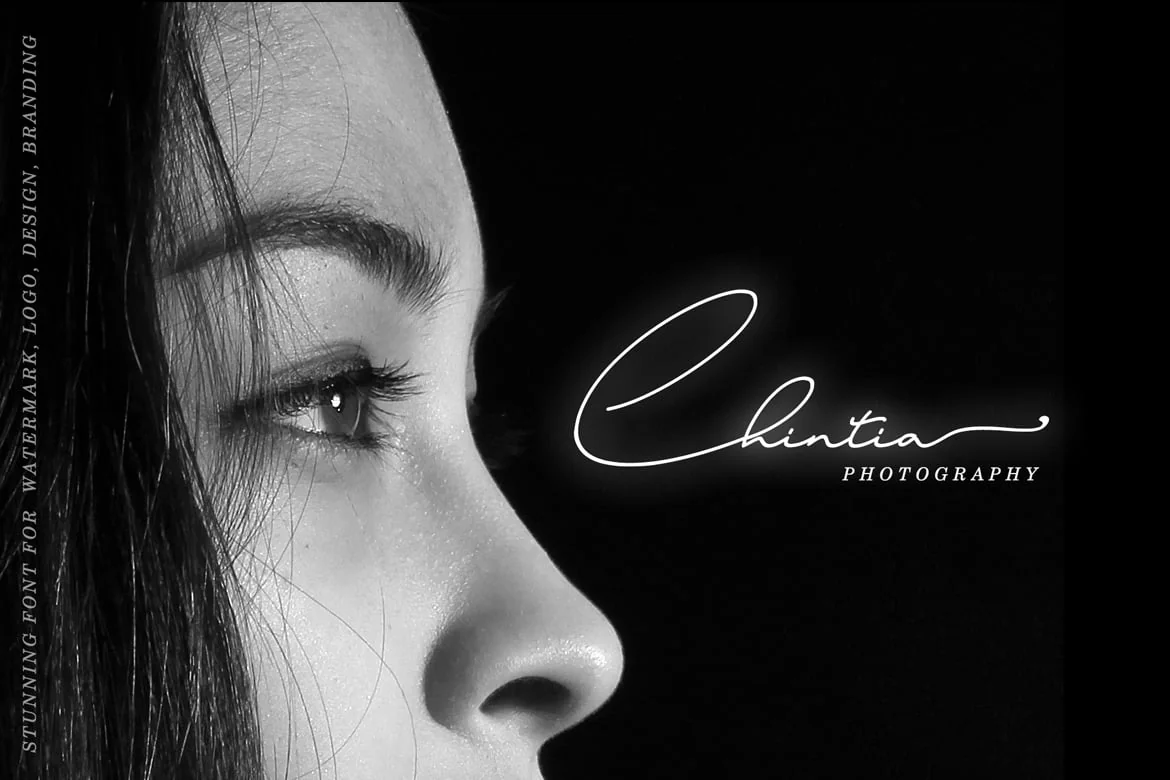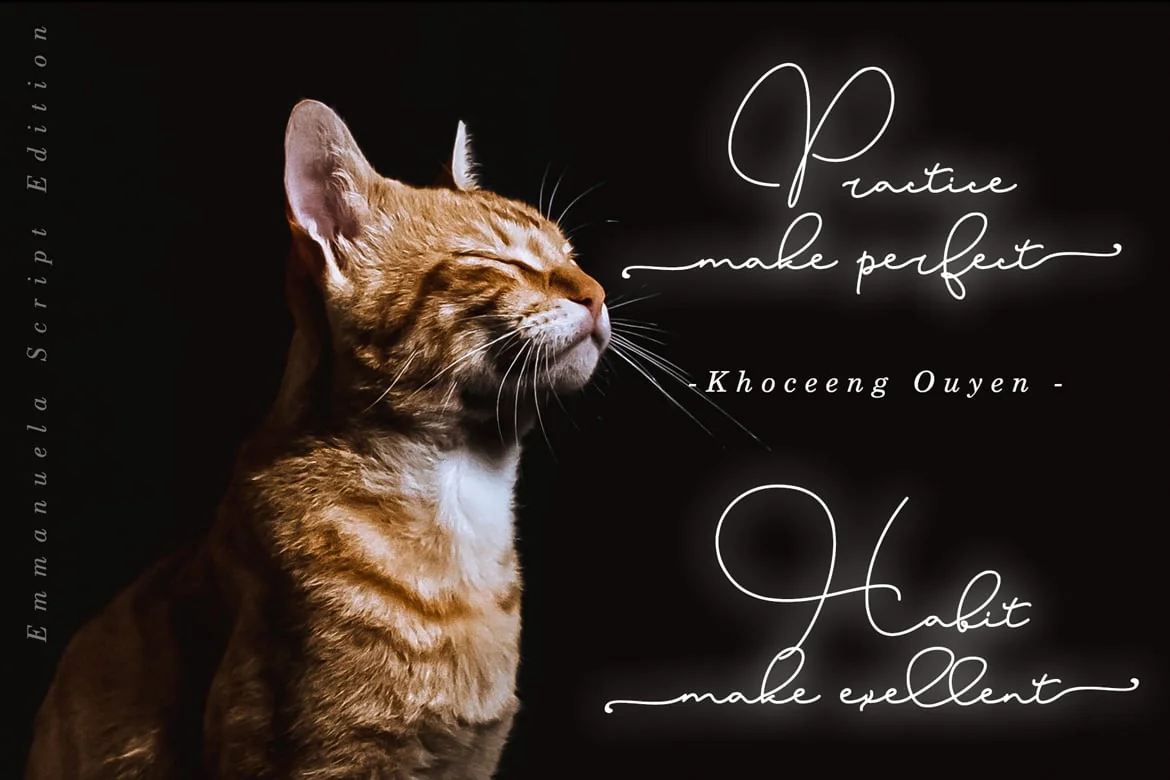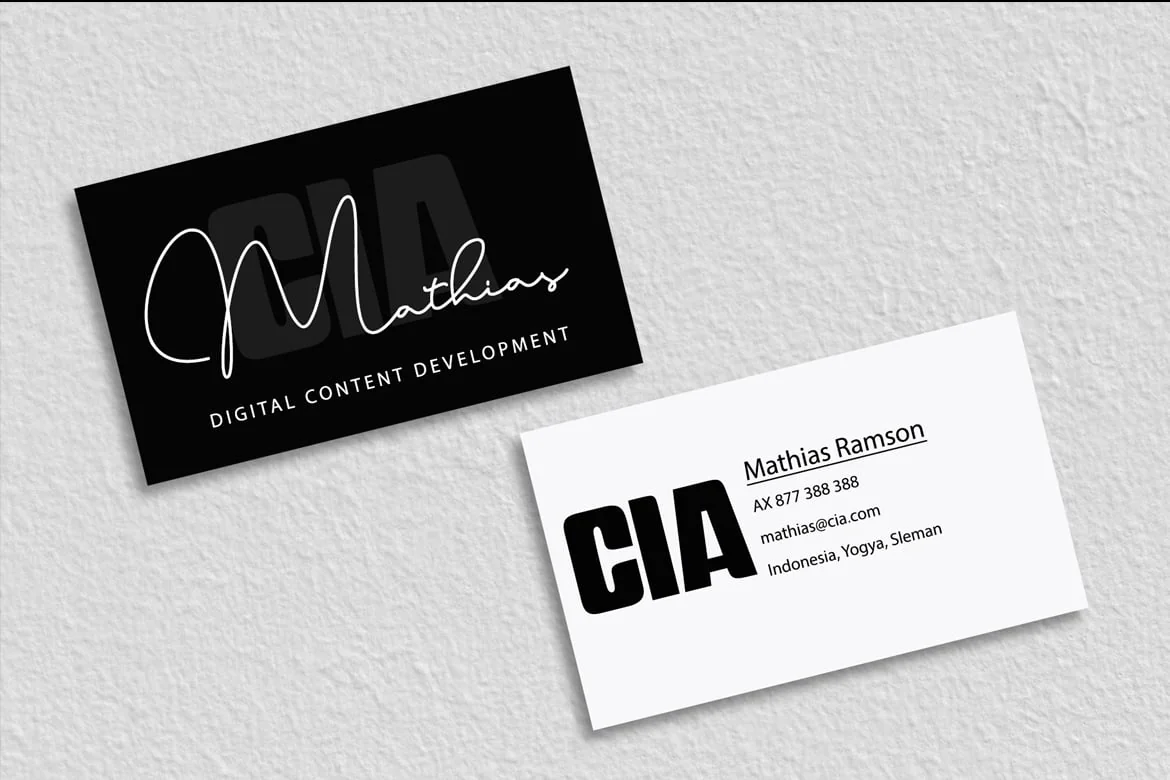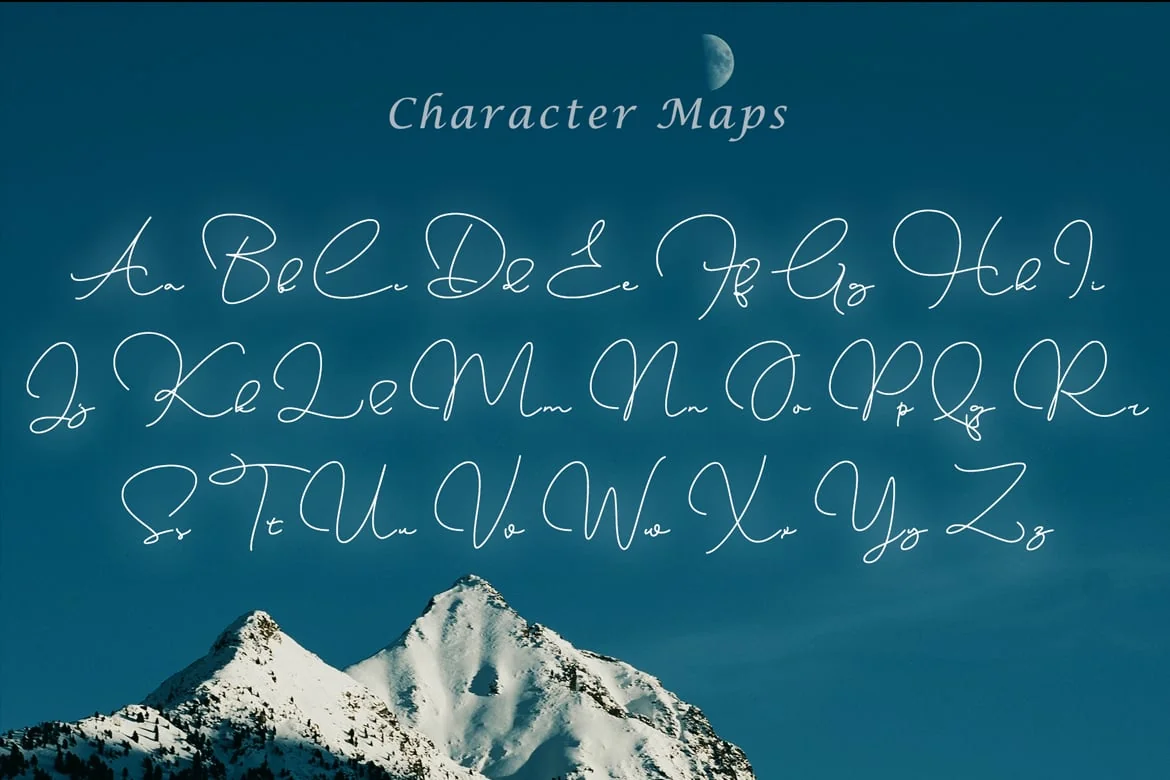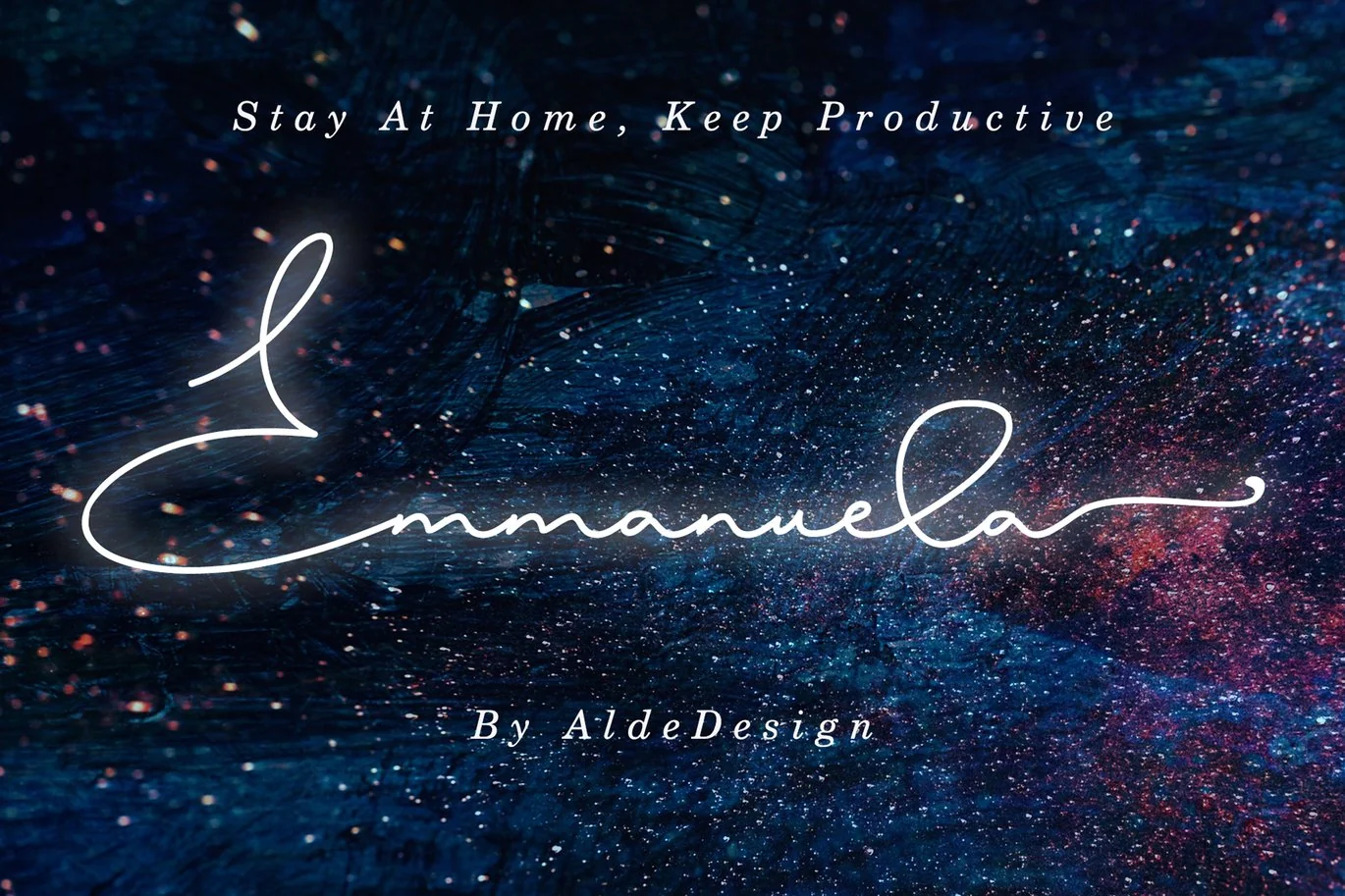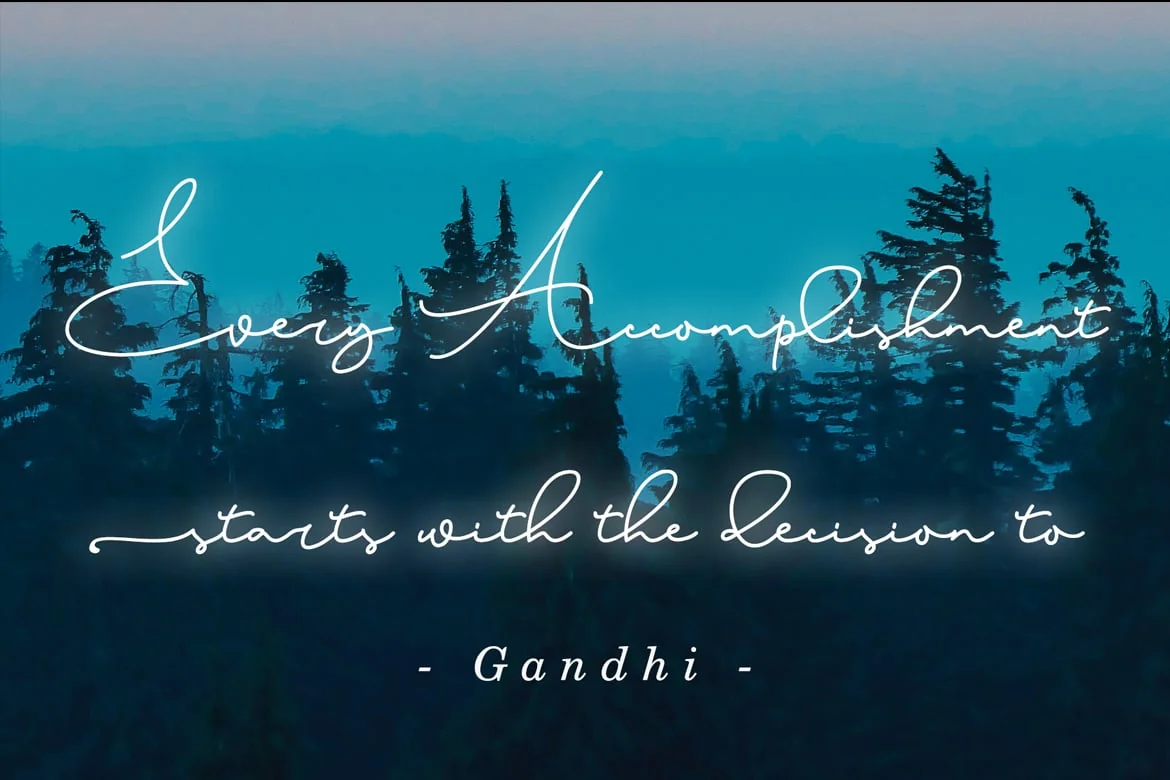
Emmanuela // Signature Font
Emmanuela // Signature Fontt is a great font for your any project!
This font made with awesome and classy taste, comes with natural touch, so much ligatures & alternates.
We keep this font looks classy, readable, elegant, stylish, catchy and absolutly easy to use.
Emmanuela // Signature Font is the great choice for watermark on branding, design, wedding, photography, signature, logo design, album cover, business card, quotes, and many other design project.
- Stylish handwritten style
- Ligatures, Alternates, Swash (ending tail), and titling (beginning tail)